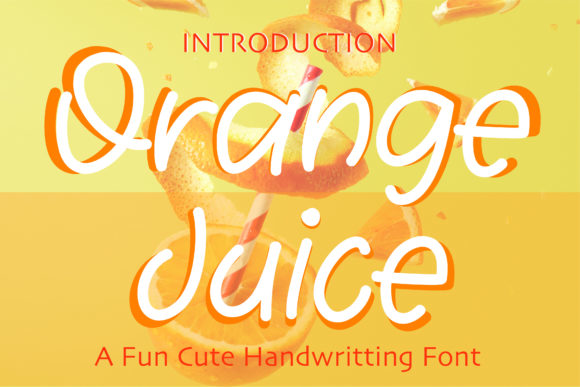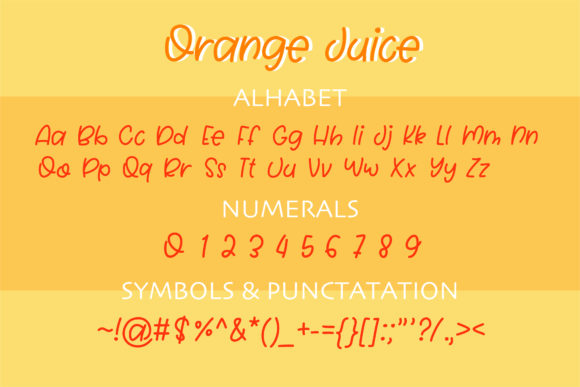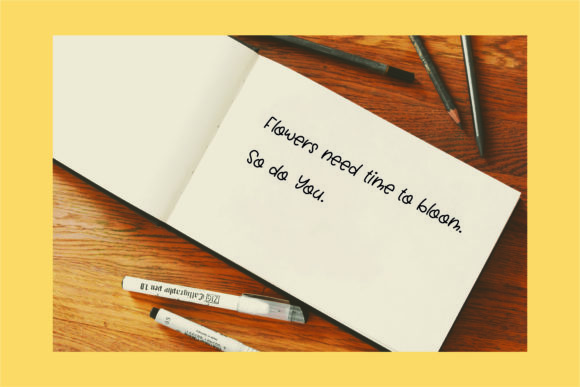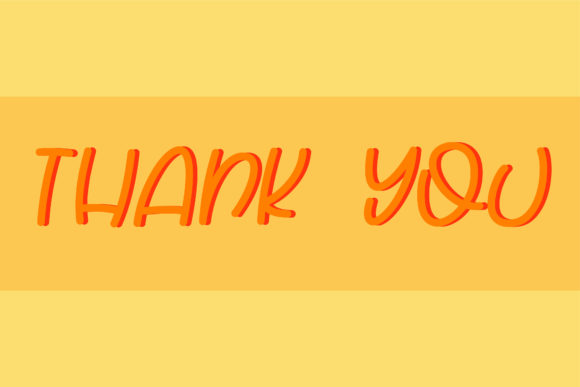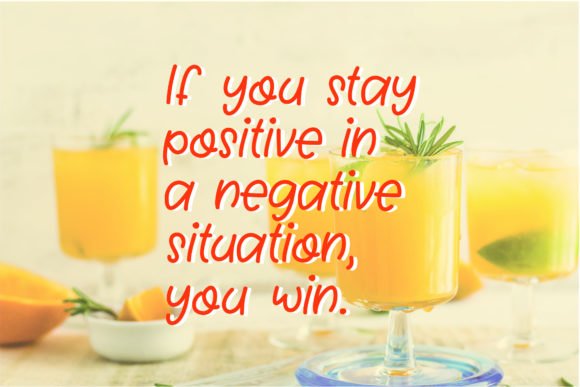
About Orange Juice Font
Introducing “Orange Juice,” a cute and playful handwritten font that exudes a delightful and joyful vibe. With its playful and lively style, this font is the perfect choice for a wide range of designs that require a touch of fun and happiness.
“Orange Juice” is ideal for cartoon-related designs, as it captures the whimsical and animated essence that is often associated with cartoons. Whether you’re creating illustrations, comics, or children’s books, this font will add a playful and energetic touch to your artwork.
The font’s cheerful and vibrant appearance also makes it well-suited for children’s games and educational materials. From interactive apps to learning resources, “Orange Juice” will bring a sense of joy and excitement to the young audience.
In addition to its versatility in cartoon and children-related designs, “Orange Juice” is a great choice for quotes, titles, brand names, book covers, posters, and more. Its playful nature adds a touch of creativity and positivity to any project, making it stand out and grab attention.
With “Orange Juice,” you have the opportunity to infuse your creations with a sense of joy and lightheartedness. Whether you’re designing for personal projects or professional endeavors, this font will bring a smile to people’s faces and create a positive and uplifting atmosphere.
So go ahead and embrace the playful charm of “Orange Juice” in your designs. Let its lively and cute appearance brighten up your creations and spread happiness to those who encounter them. Whether it’s a playful brand identity, an engaging poster, or a whimsical book cover, this font is sure to bring a touch of joy to your creative endeavors. Enjoy the creative journey with “Orange Juice” and let your imagination run wild!